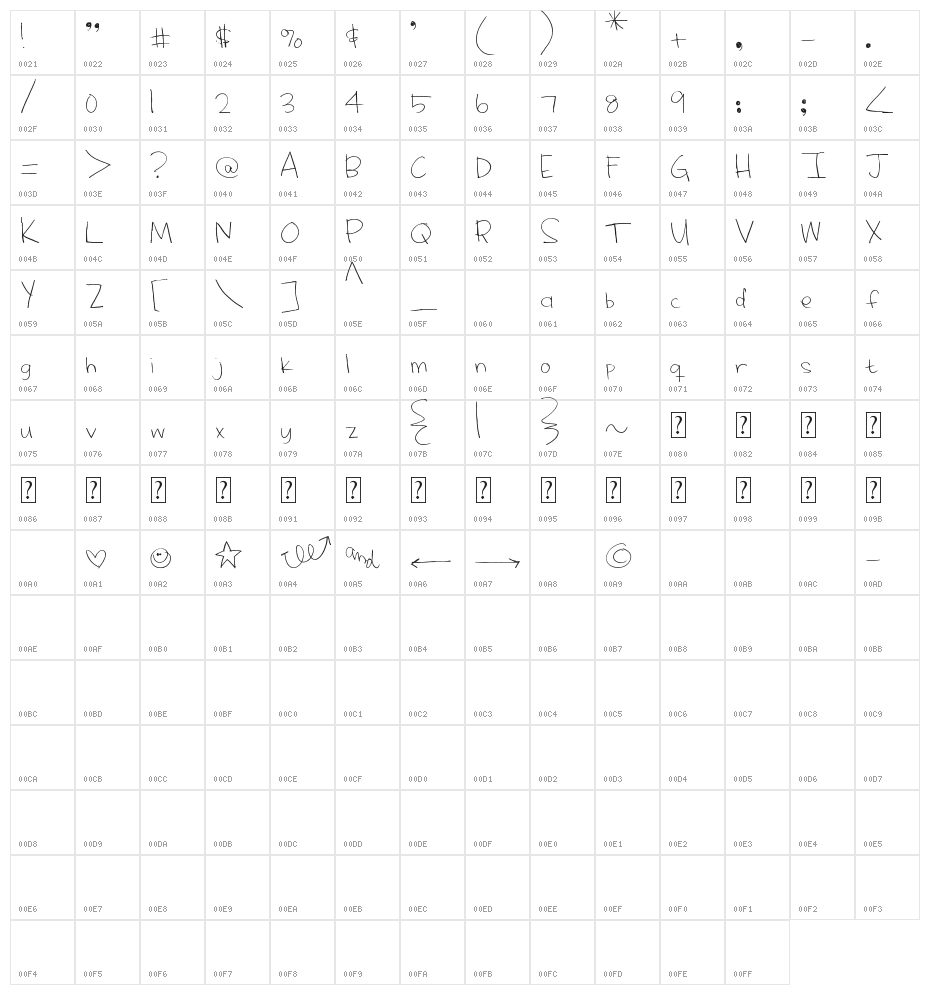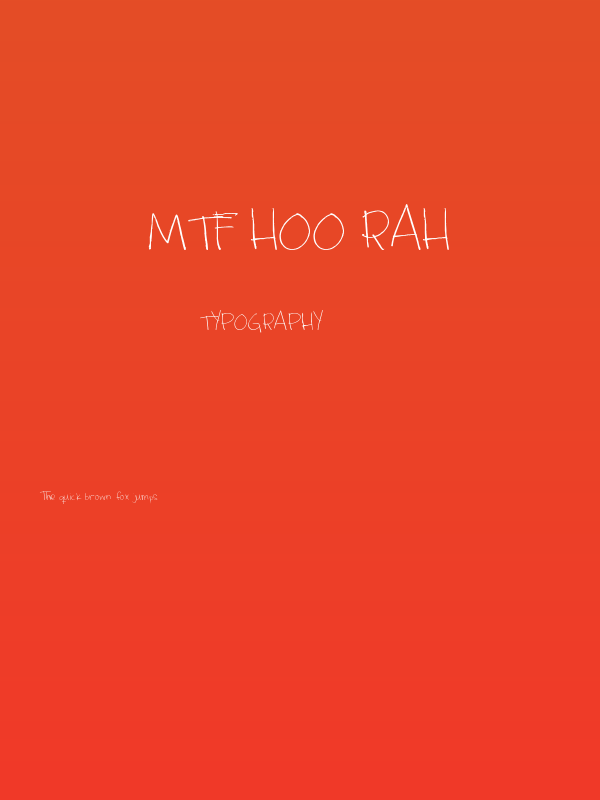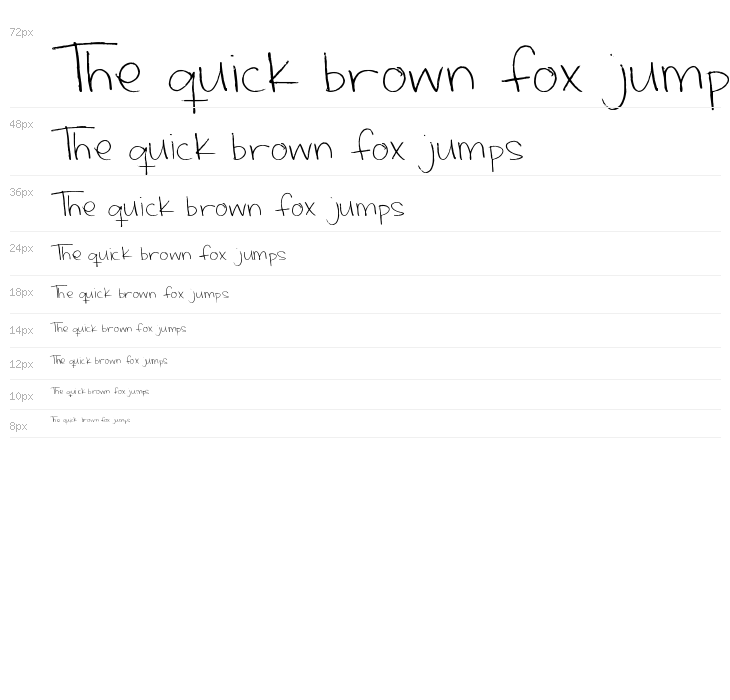
MTF Hoo Rah Font
MTF Hoo Rah Description
This font features a playful and casual handwritten style, characterized by its irregular and slightly whimsical letterforms. The strokes are uneven, giving it a natural and organic feel, reminiscent of a personal note or sketch. The uppercase letters are tall and slightly narrow, while the lowercase letters maintain a consistent flow with rounded edges. Numbers and special characters follow the same informal aesthetic, adding to the font's charm. This font is ideal for projects that require a personal touch or a relaxed, friendly vibe.
Overall StyleCasual, Playful
Use CaseHeadlines, Informal text, Creative projects
Proposed ProjectsGreeting cards, personal notes, children's books, casual invitations, and creative projects.